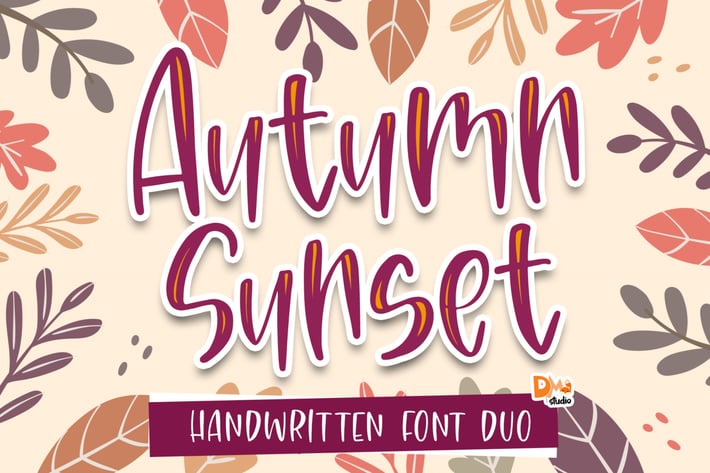
Autumn Sunset - Handwritten Font Duo
Autumn Sunset
Introducing this fun and gorgeous handwritten font : Autumn Sunset Font Duo
Combine the line and regular version. Make your design more appealing and unique! Get yours now!
- Numerics
- Symbols and Punctuations
- Two Versions, Line and Regular